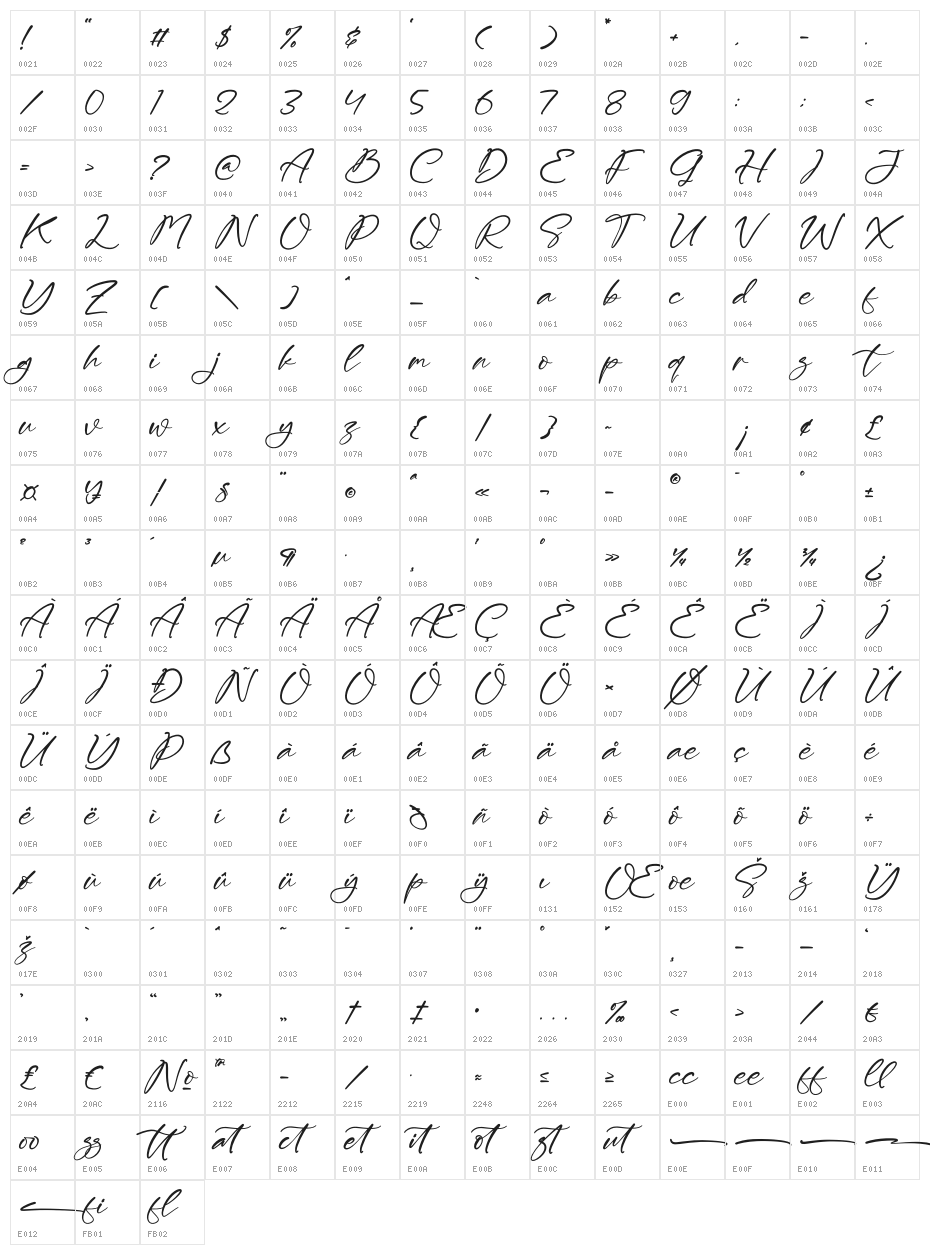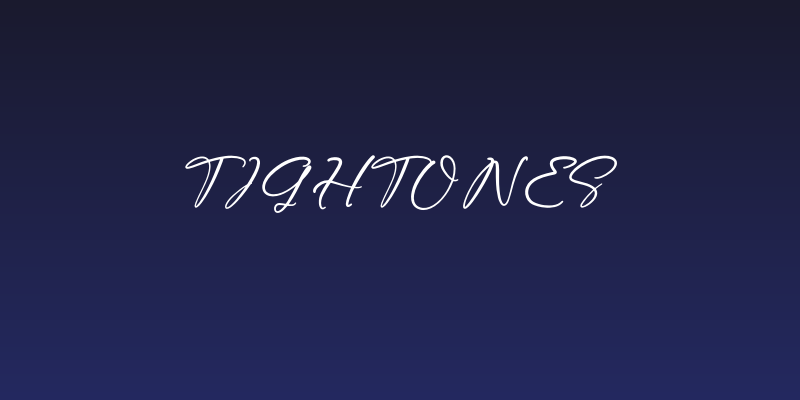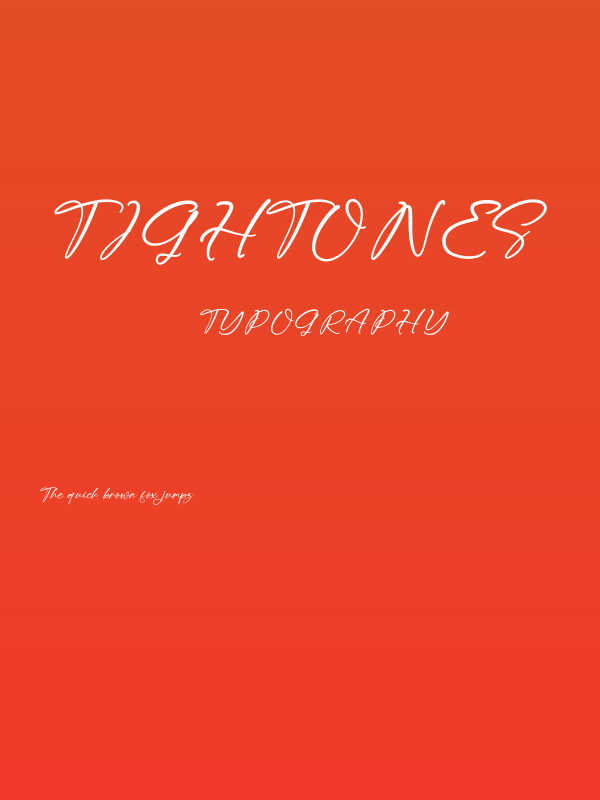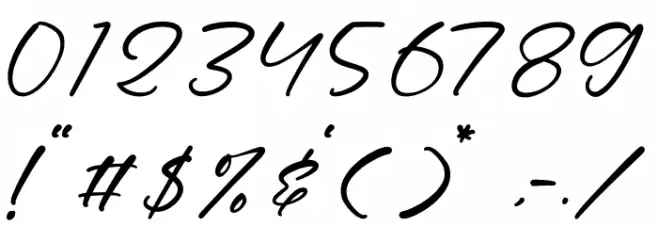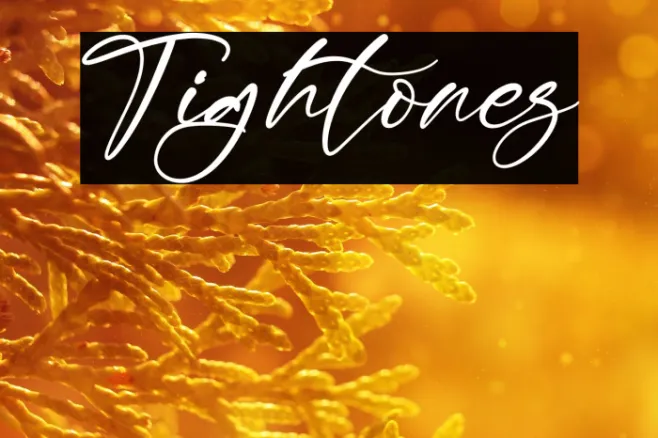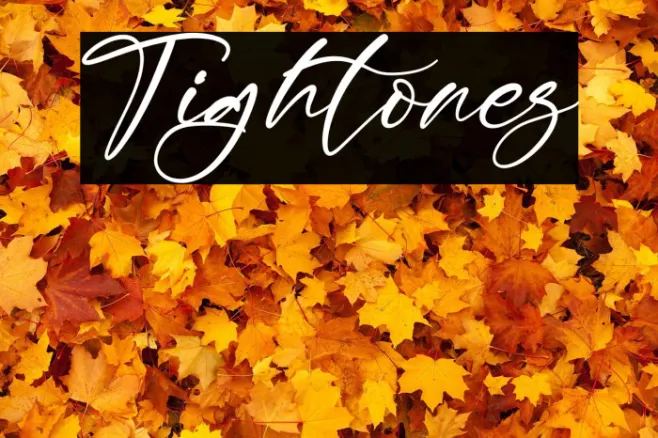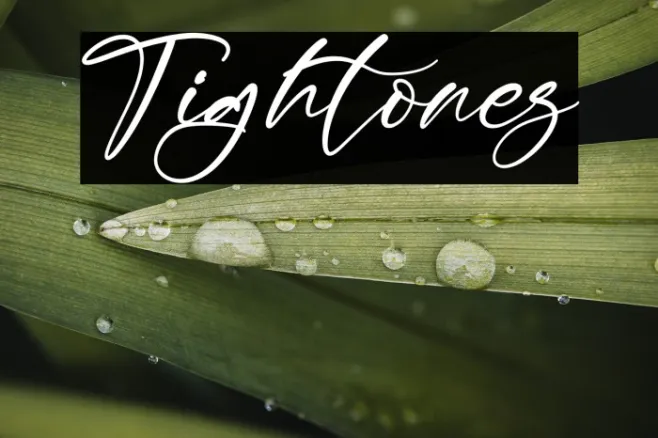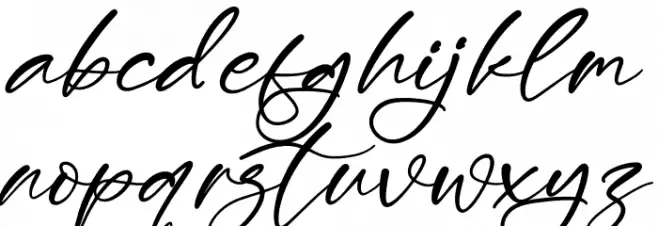
Tightones Font
Tightones Description
This font exhibits a fluid, cursive style with elegant, sweeping strokes that give it a handwritten appearance. The uppercase letters are characterized by their graceful loops and curves, while the lowercase letters maintain a consistent flow, enhancing the script's overall cohesiveness. The numerals are designed to complement the letters, maintaining the same flowing aesthetic. Special characters are seamlessly integrated, ensuring versatility in various design contexts. The font's overall appearance is both sophisticated and approachable, making it suitable for a wide range of applications.
| Proposed Projects | Ideal for wedding invitations, greeting cards, personal branding, and elegant packaging designs. |